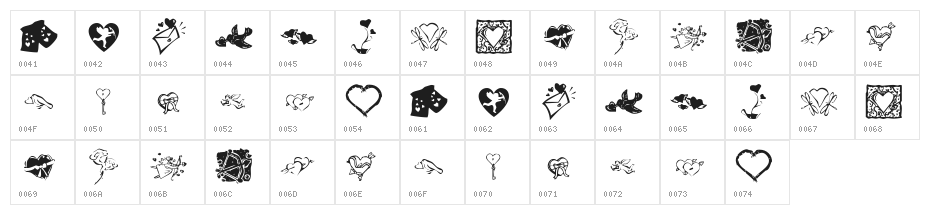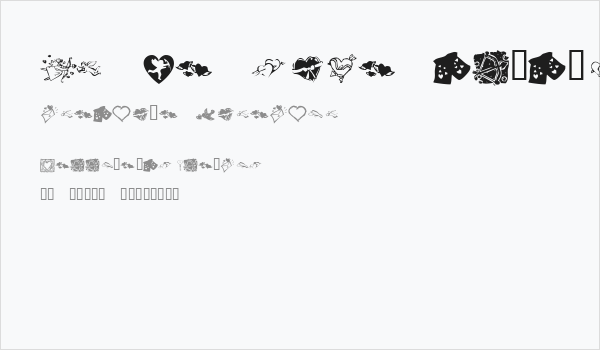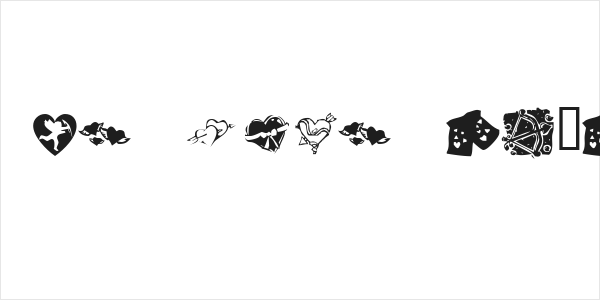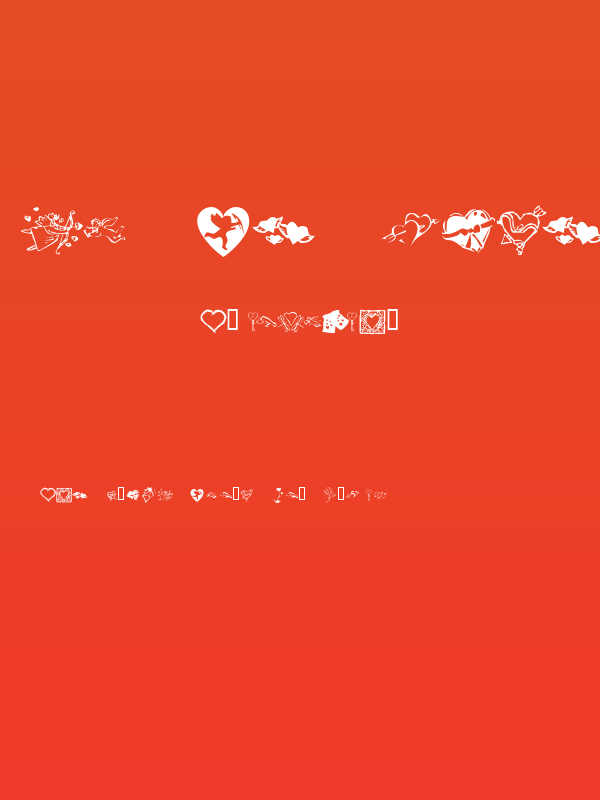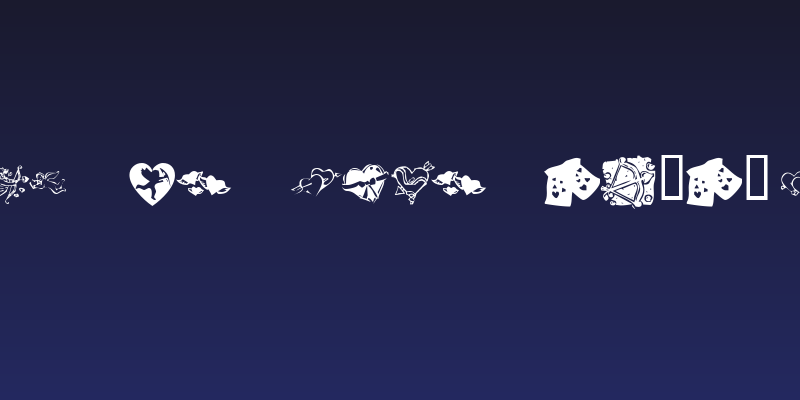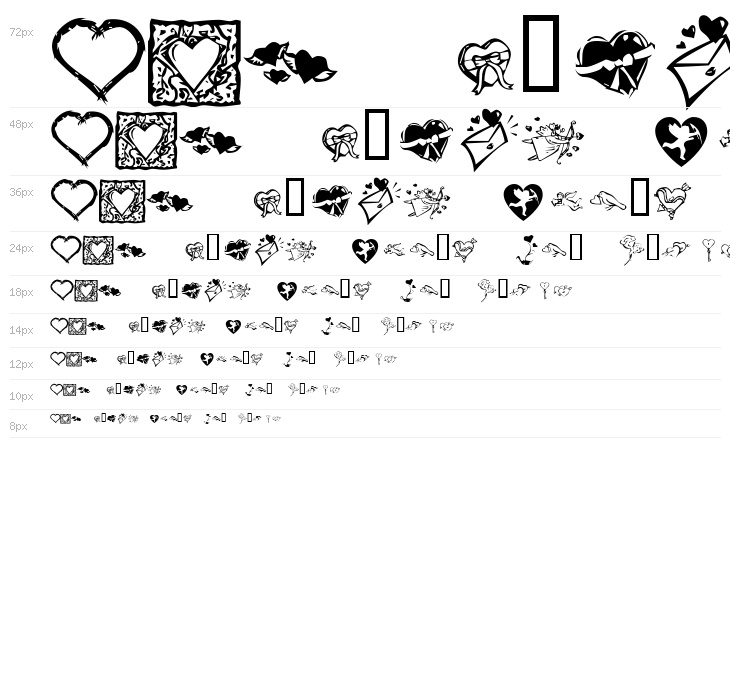
KR Be Mine Always Font
KR Be Mine Always Description
This is a decorative font featuring a collection of romantic and whimsical symbols. The characters include hearts, arrows, birds, and cherubs, each intricately designed to convey a sense of love and affection. The style is playful and ornate, with each symbol crafted to add a touch of elegance and charm. The font is perfect for creating a romantic or festive atmosphere, ideal for use in invitations, greeting cards, or any project that requires a touch of whimsy and romance. The symbols are bold and clear, making them suitable for both digital and print media.
| Proposed Projects | Ideal for wedding invitations, Valentine's Day cards, romantic event promotions, and decorative posters. |